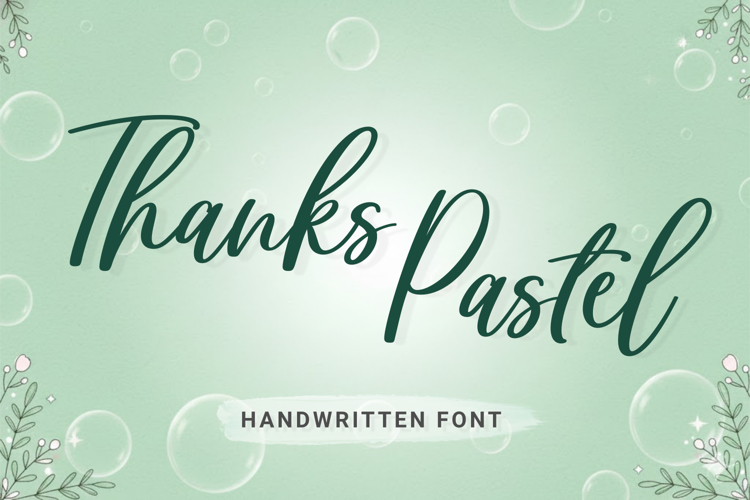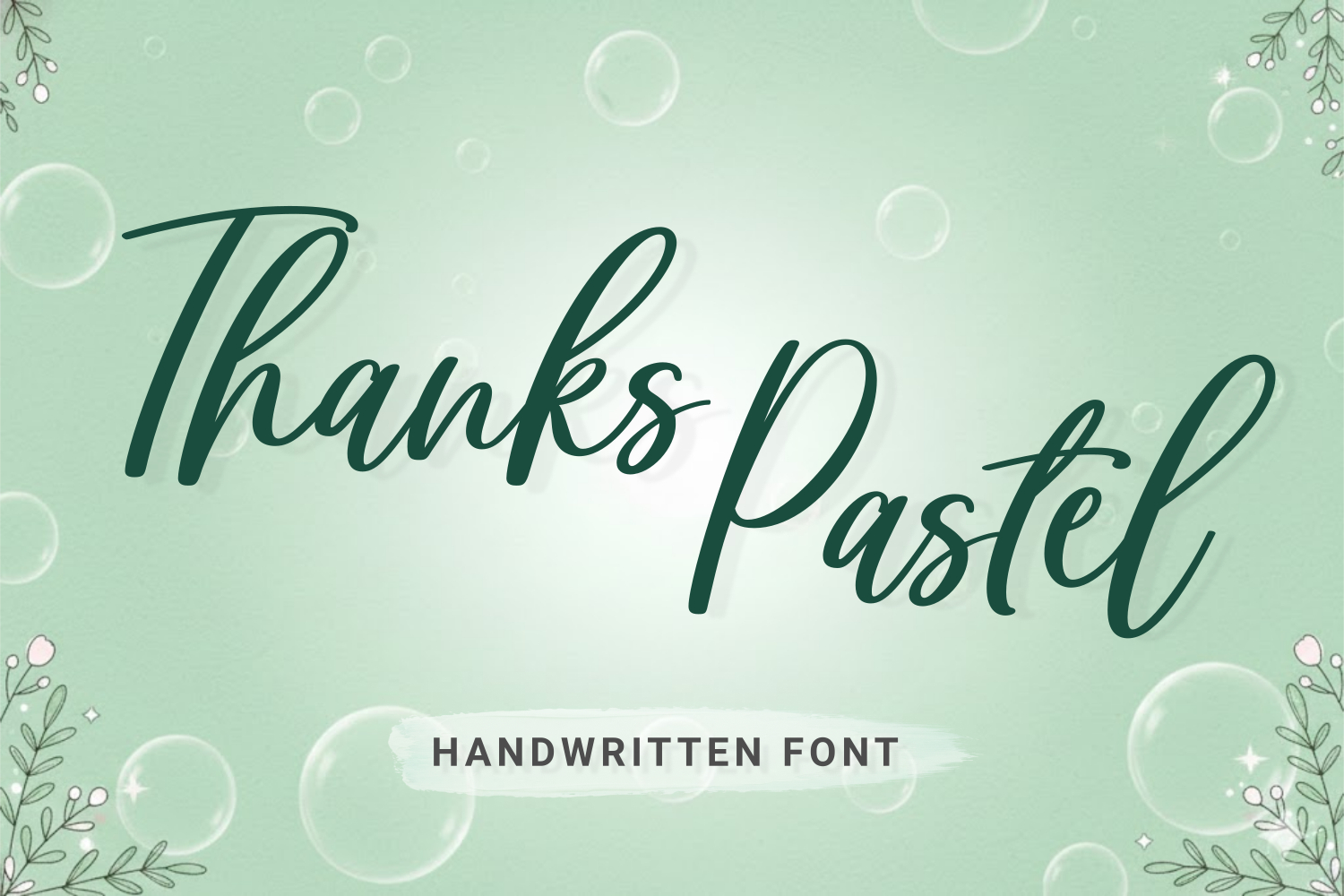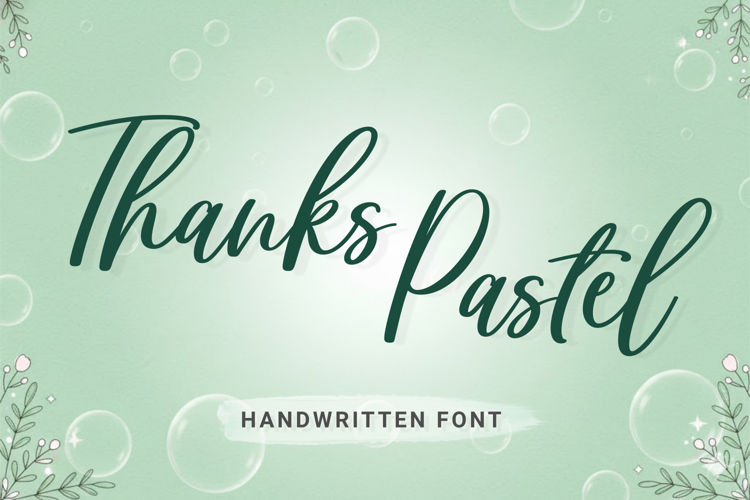
Thanks Pastel is a soft and charming handwritten font with a natural, flowing style. Its smooth strokes and friendly letterforms create a warm and calming feel. Perfect for greeting cards, invitations, quotes, branding, product packaging, social media posts, and pastel-themed aesthetic projects. Thanks Pastel brings a sweet, cozy, and elegant vibe, making your designs feel more heartfelt and inviting.